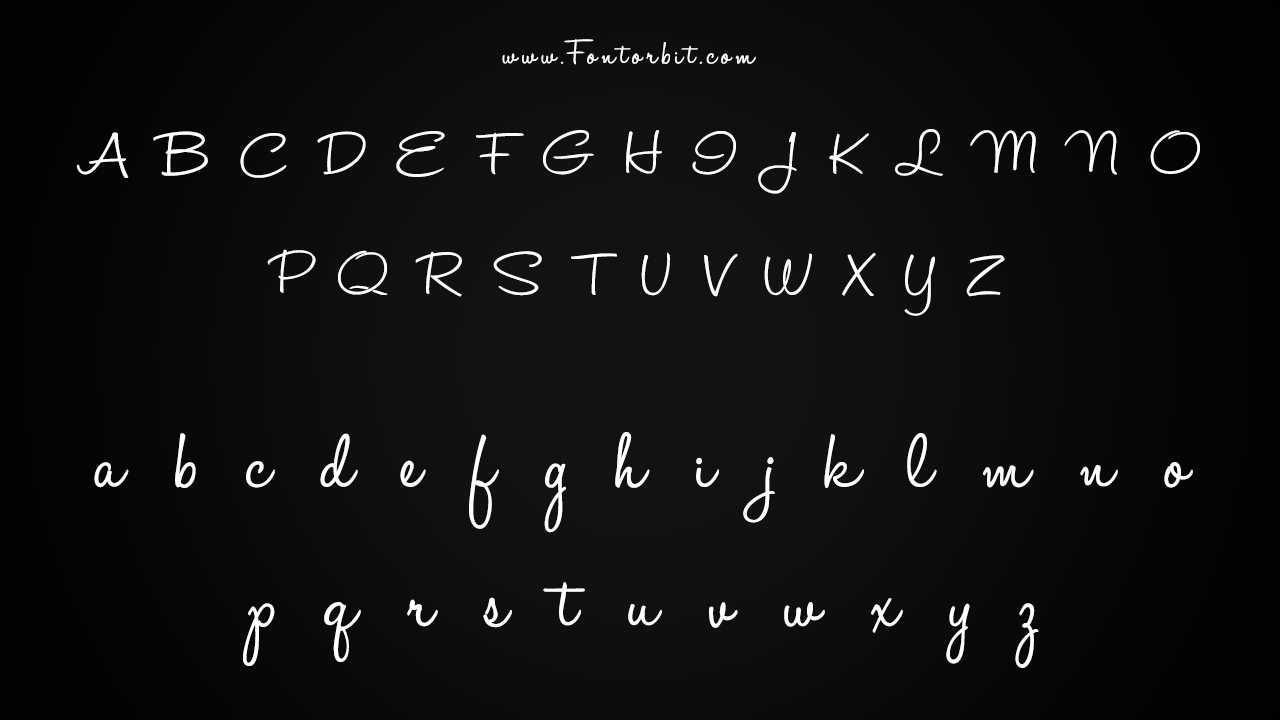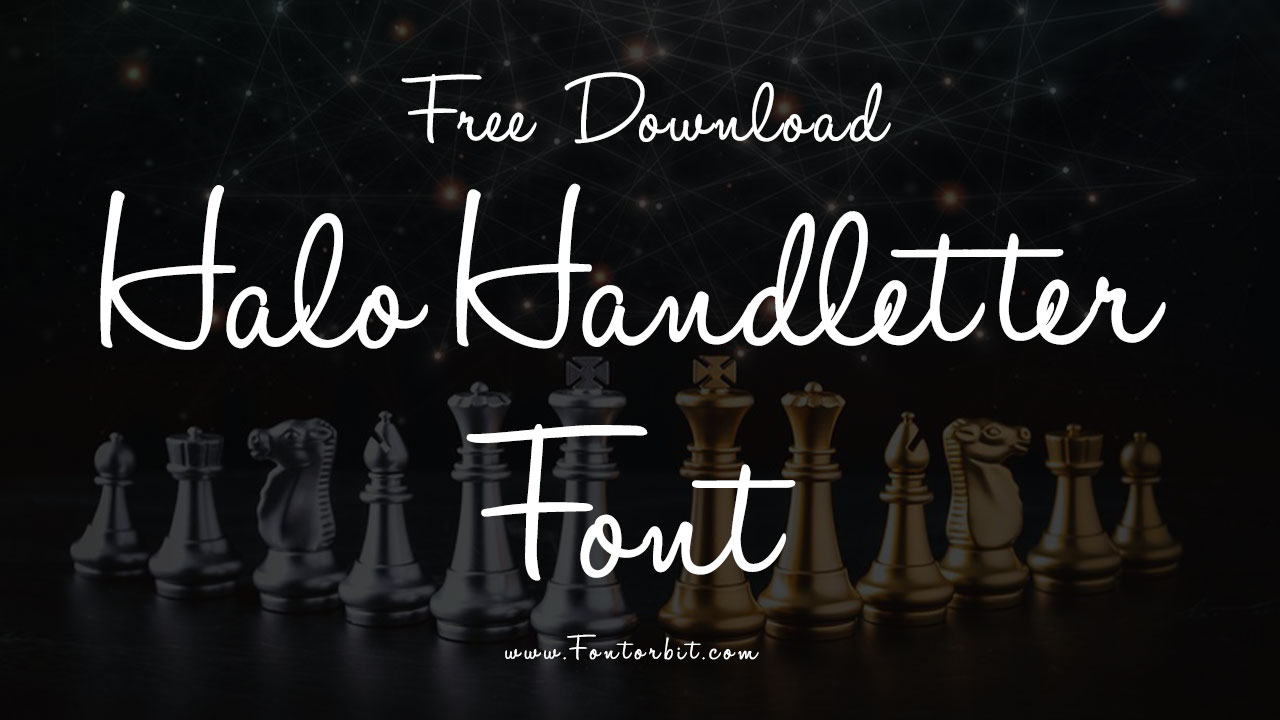
The Halo Handletter font is a beautiful and versatile script font created by Mario Arturo. Published in 2018, this elegant font blends hand-lettered charm with vintage aesthetics, making it a popular choice for both personal and professional projects.
It is part of the script font family, which designers often use in creative projects for its fluid, handwritten appearance.
People love the Halo Handletter font family for its elegant and organic feel, which mimics the fluidity of handwriting. It includes:
a. Halo Handletter Regular
These variations add versatility to the font family, allowing it to be used in a wide range of projects from logos to invitations and everything in between.
Notable Uses Of Halo Handletter
The Halo Handletter font has been widely used in branding, wedding invitations, greeting cards, and packaging design. Its soft, flowing lines and elegant curves make it perfect for projects requiring a touch of personalization and sophistication.
The Halo Handletter font is ideal for:
- Wedding Invitations
- Logo Design
- Packaging and Branding
- Greeting Cards
The font’s delicate strokes give it a human touch that appeals to artistic and professional settings alike, especially where a personal or elegant flair is needed.
The Halo Handletter font combines vintage charm with the elegance of handwritten scripts, making it perfect for anyone looking to add a sophisticated touch to their creative projects.
Whether you’re working on branding, event invitations, or social media graphics, this versatile font will help your work stand out with its unique aesthetic.
The Halo Handletter font is a hand-lettered script font designed by Mario Arturo in 2018, known for its elegant, flowing style.
The Halo Handletter font was designed by Mario Arturo.
It’s perfect for wedding invitations, logos, packaging, and other projects requiring a personal, elegant touch.
Halo Handletter is part of the script font family.
Yes, the Halo Handletter font family includes bold, italic, and vintage variations.